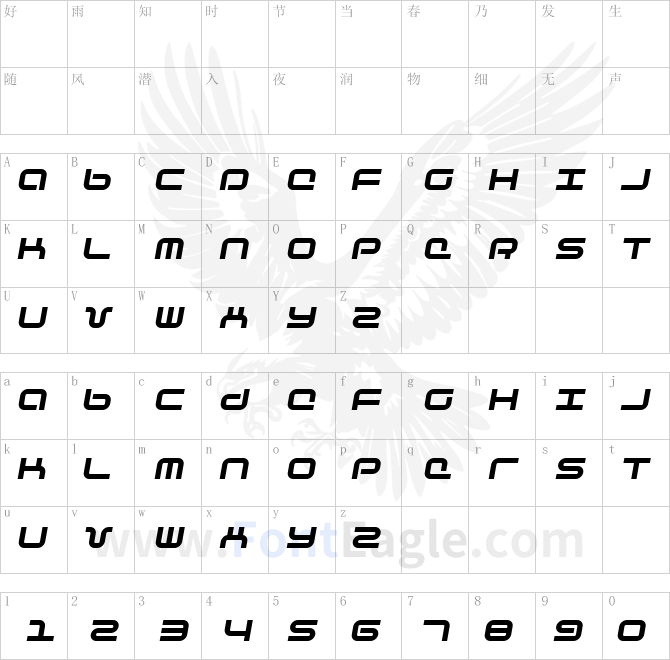
- Font name:Phutura
- Font Subfamily ID:dustPhutura Italic
- Font Full Name:Phutura Italic
- Font Version:Version 1.0; 2001
- Postscript:Phutura-Italic